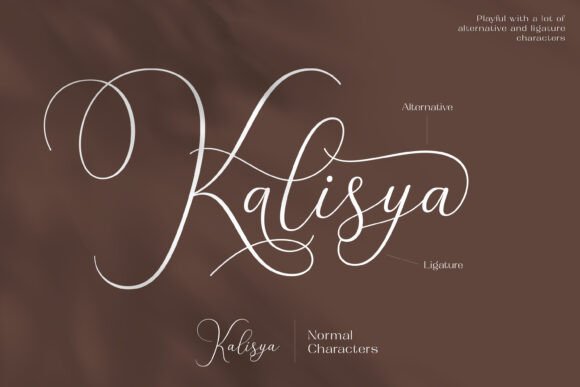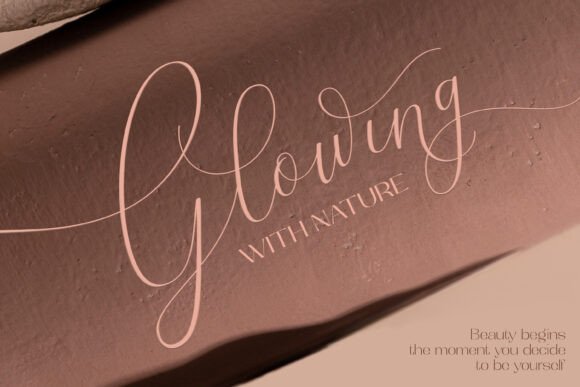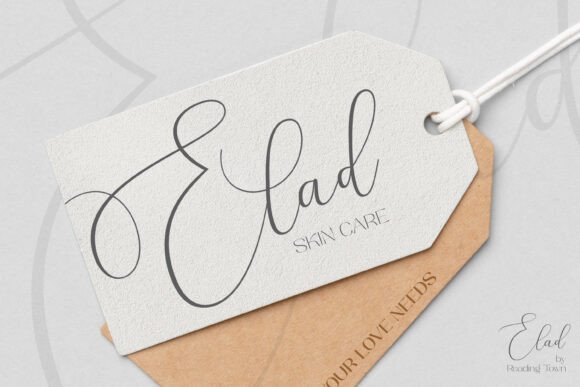
Introduction to Reading Town Font
Do you remember the thrill of discovering a new design resource that completely transforms your creative projects? For me, that moment came when I stumbled upon the Reading Town Font. Its elegant script style and versatility immediately caught my attention, and I knew I had to learn more.
As a designer, I’m always on the lookout for high-quality fonts that can elevate my work and help me stand out in a crowded market. The Reading Town Font is more than just a pretty face – it’s a powerful tool that can add sophistication and elegance to any design, from logos and branding to posters and magazine layouts. With its extensive library of alternative and ligature characters, the possibilities are endless, and I’m excited to share my experience with you.
In this article, I’ll take you on a journey through the world of Reading Town Font, exploring its features, uses, and benefits for designers like you. Whether you’re a seasoned pro or a creative enthusiast, I’m confident that this font will become a valuable addition to your design arsenal.
Key Features of Reading Town Font
- Includes a large character set, covering a wide range of languages and characters.
- Features a clean and modern design, perfect for use in various contexts, from editorial to advertising projects.
Honest Review: Reading Town Font
What works well: ✨ The font is incredibly versatile, with a mix of modern and classic elements that make it perfect for a wide range of design applications. The transparent background is also a great touch, making it easy to layer with other design elements.
Limitations: ⚠️ While the font is high-quality, it’s not as extensive as some other font collections. Additionally, the font family is relatively small, so you may need to supplement with other fonts for more complex design projects.
Overall impression: I’m really impressed with the Reading Town Font. It’s a great addition to any designer’s toolkit, and the free download makes it an attractive option for designers on a budget. With a little creativity, this font can be used to create some amazing designs!
The Reading Town Font is perfect for a variety of creative projects, including blog posts, social media graphics, and presentations. Its high-quality design and transparent background make it an excellent choice for any project that requires a professional and visually appealing look.